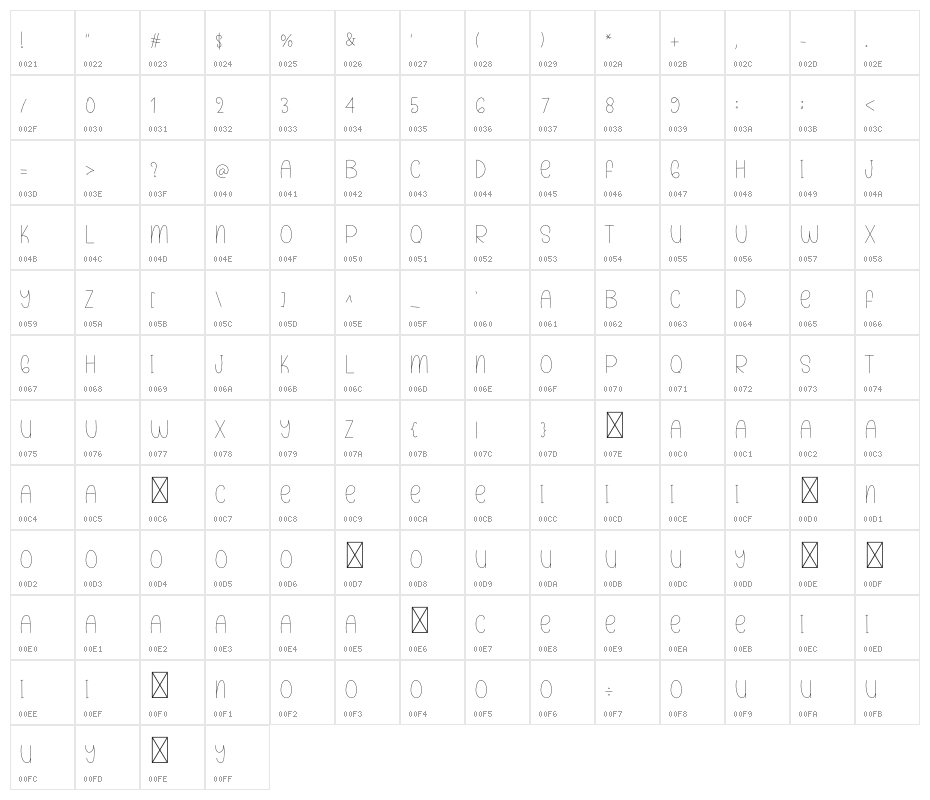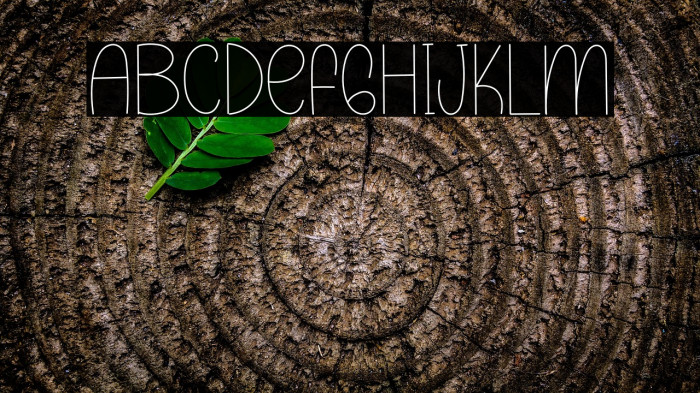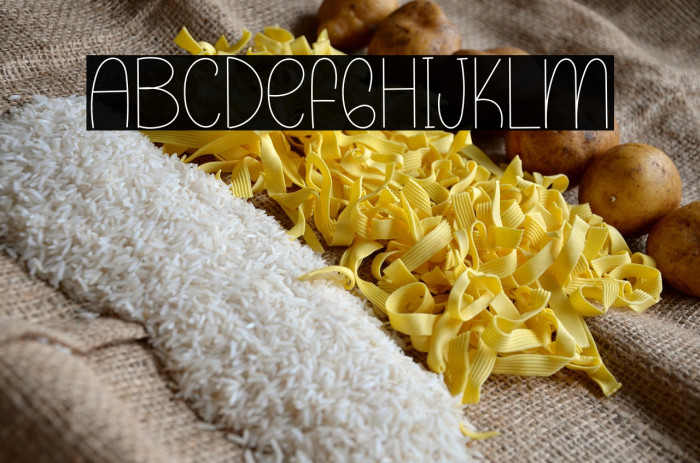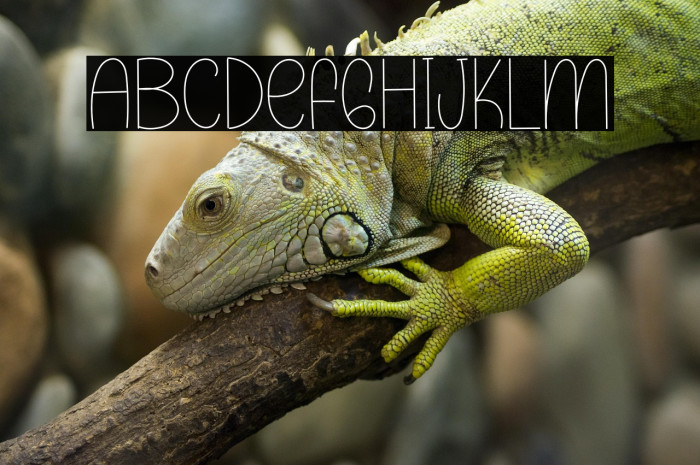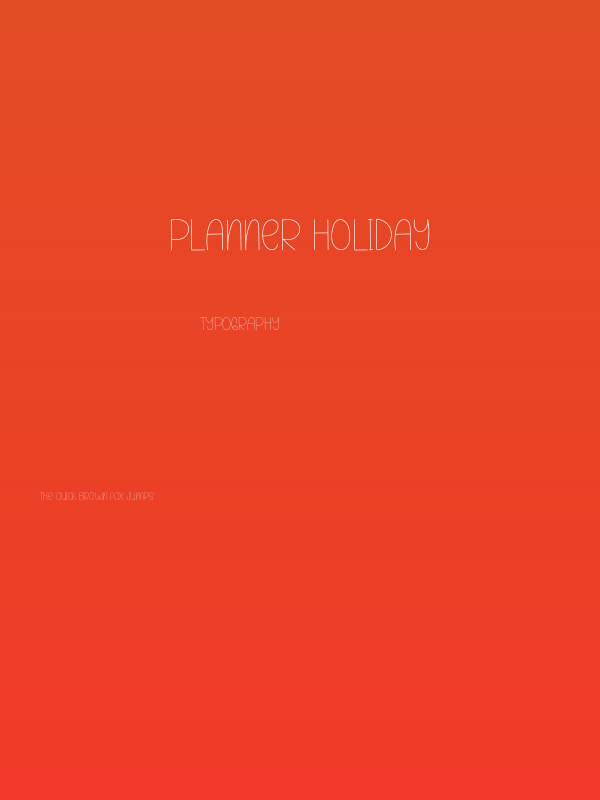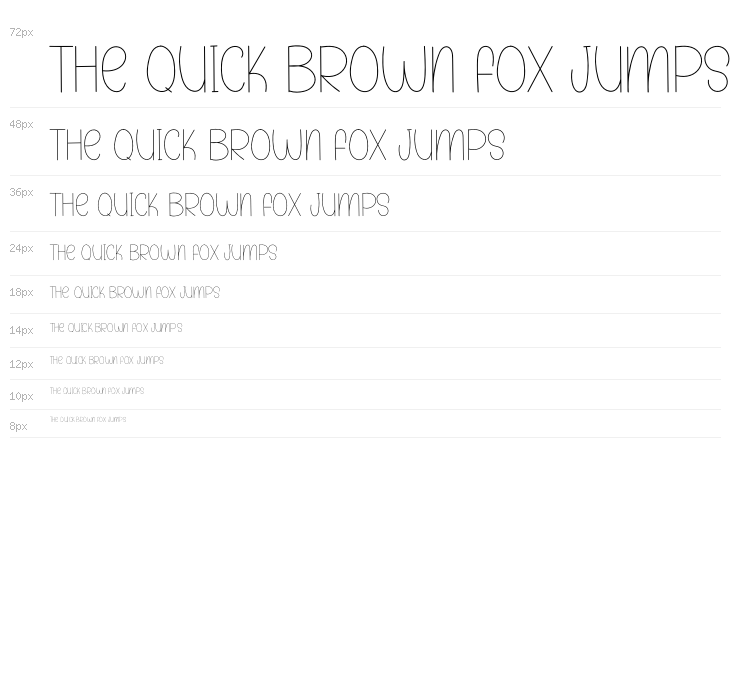
Planner Holiday Font
Planner Holiday Description
This font features a delicate and whimsical design, characterized by its thin, elongated letterforms and subtle curves. The uppercase and lowercase letters maintain a consistent height, creating a harmonious and balanced appearance. The numerals and special characters are crafted with the same attention to detail, ensuring a cohesive look across all elements. The font's airy and light structure makes it ideal for projects that require a touch of elegance and playfulness. Its unique style is both modern and approachable, making it versatile for various design applications.
| Overall Style | Whimsical and Elegant |
| Use Case | Headlines, Invitations, Decorative Text |
| Proposed Projects | Ideal for wedding invitations, greeting cards, branding, and decorative posters. |